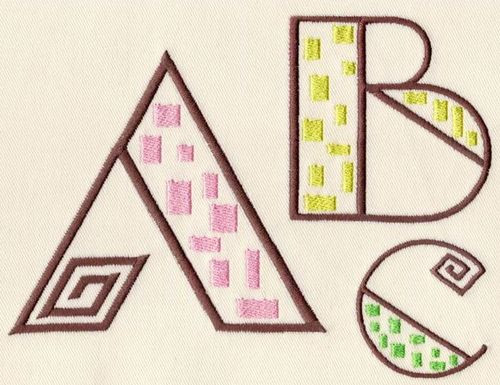
224 Jitterbug Blocks Font
Jitterbug Blocks Font comes in 2", 3" and 4" heights. Includes Uppercase Letters, Numbers and four Punctuations (no lowercase for this font). Letter outlines are in regular Satin Stitch and blocks are in fill stitch. Most characters in the 4" set and the "W" in the 3" set exceed the standard 3.96" x 3.96" PES hoop limitations.